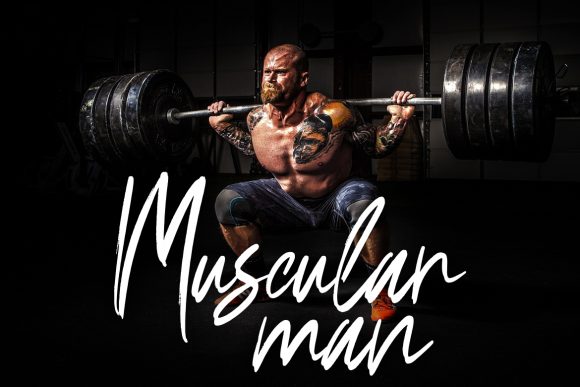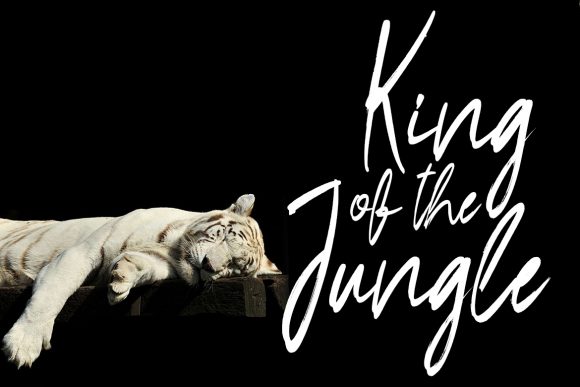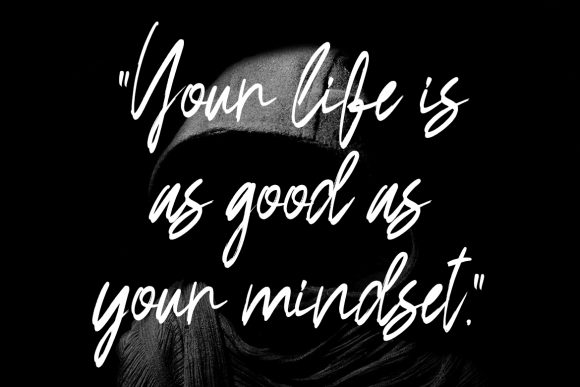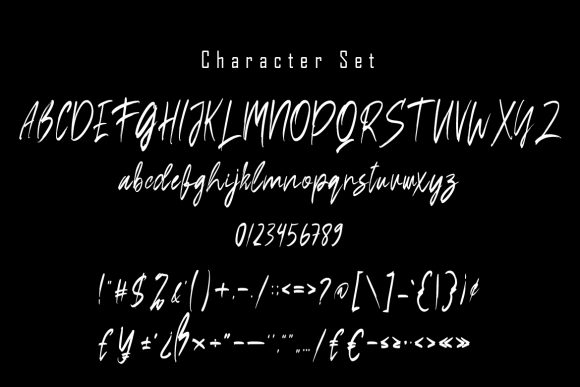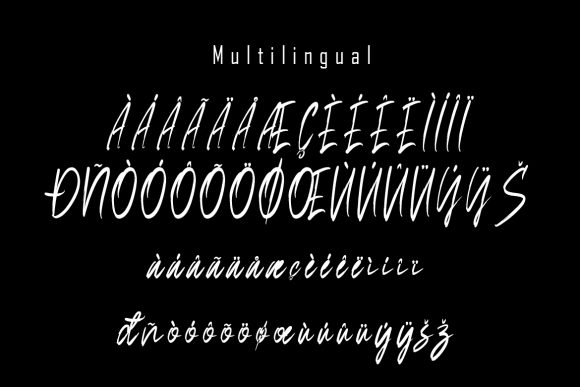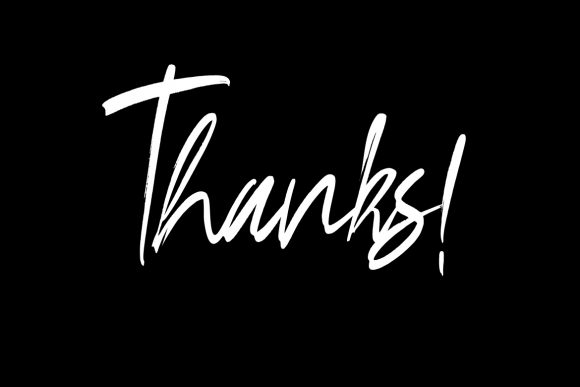
Unlocking the Art of Handwritten Perfection with the Brushee Font
Have you ever been working on a design project, pouring your heart and soul into it, only to feel like something’s missing? You know, that spark that sets your creative juices flowing and makes your design truly special? For designers, this is a common experience, and it’s exactly why we’re excited to introduce the Brushee Font – a stylish and luxurious handwritten font designed to elevate your projects to the next level.
With its perfect balance of thickness and variability, the Brushee Font is the perfect addition to any designer’s toolkit. Whether you’re working on a wedding invitation, a fashion brand’s marketing materials, or a beautiful piece of art, this font is sure to add that extra touch of elegance and sophistication. As a valuable resource for designers, the Brushee Font offers endless possibilities for creativity and self-expression, making it a must-have for any design enthusiast.
- Font Family: Brushee Font is a unique, hand-painted font family designed to evoke a sense of whimsy and playfulness.
- Character Count: The font family consists of approximately 200 characters, including uppercase and lowercase letters, numbers, and punctuation marks.
- Font Size: Brushee Font is designed to be highly legible at various font sizes, making it suitable for a range of applications, from small text to large headings.
- Unique Characteristics: Brushee Font features a distinctive, hand-painted style with subtle brushstrokes and texture, adding a touch of personality to any design project.
Brushee Font Review
I recently had the chance to work with the Brushee Font, and I must say it’s a unique addition to any design project. ✨ Here are some of the things that stood out to me:
- Handwritten feel**: The Brushee Font has a beautiful, handwritten feel that’s perfect for adding a touch of personality to your designs.
- Customization options**: The font offers a range of customization options, including different weights and styles, which makes it easy to tailor to your specific needs.
- High-quality glyphs**: The glyphs in the Brushee Font are high-quality and well-designed, which makes it a pleasure to work with.
- Limited language support**: The Brushee Font may not have support for all languages, which could be a limitation for designers working on projects that require multiple language support.
- Some font sizes may not render correctly**: I noticed that at certain font sizes, the Brushee Font can appear slightly distorted or blurry.
Overall, I think the Brushee Font is a solid choice for designers looking for a unique, handwritten font. While it may have some limitations, the customization options and high-quality glyphs make it a great addition to any design project.
Brushee Font is ideal for creating playful, hand-drawn text effects. Use it to add a personal touch to your designs, such as:
- Wedding invitations
- Children’s party graphics
- Food blog posts
- Illustrative quotes
Remember to experiment with different font sizes, colors, and combinations to get the most out of Brushee Font.